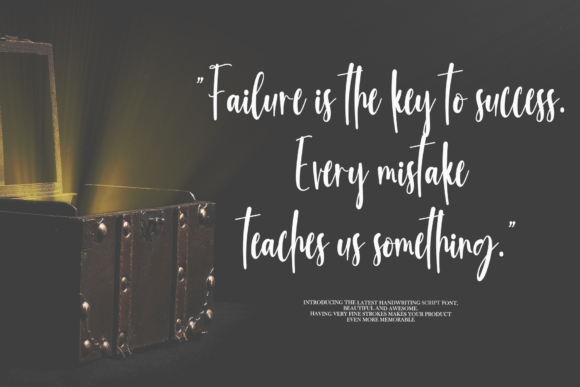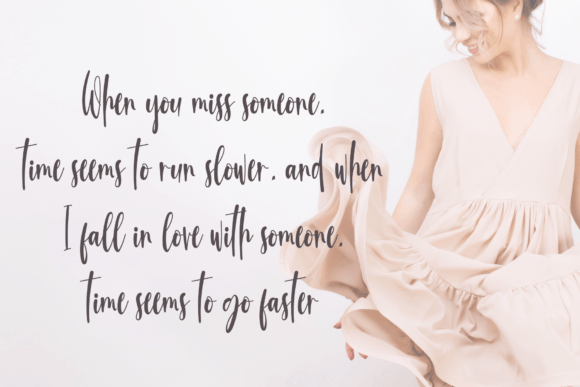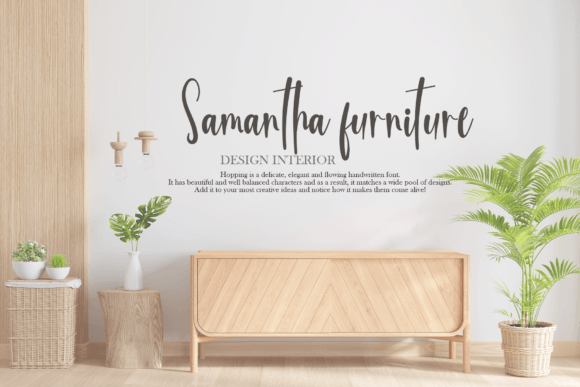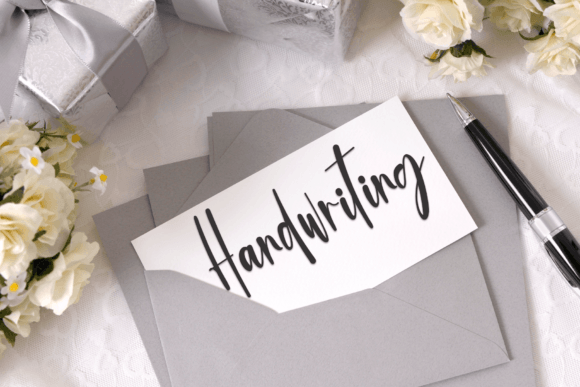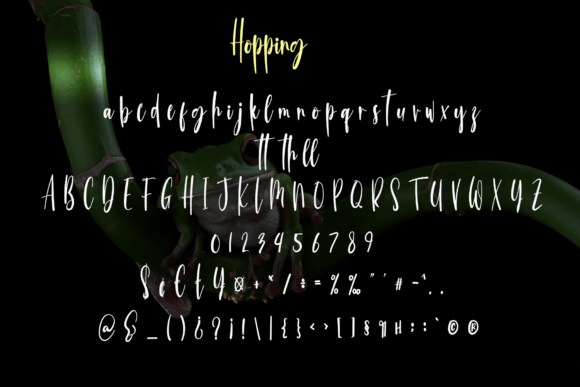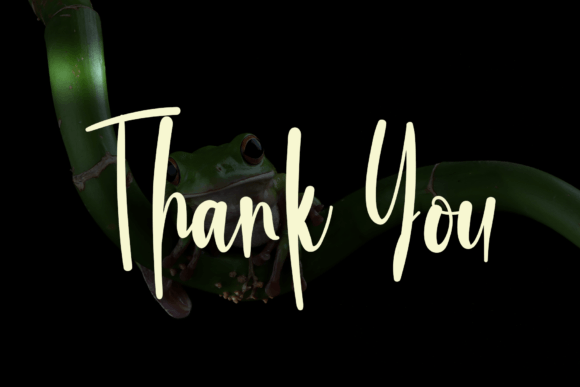
The Perfect Leap for Your Next Design Project
Have you ever been stuck in a creative rut, staring blankly at your computer screen, searching for the perfect font to bring your design to life? You know, that moment when everything seems to be missing that special something – until suddenly, it hits you. The perfect font appears, and your entire design takes a dramatic leap forward.
This is exactly what the Hopping Font is designed to do – add that extra oomph to your designs. A modern calligraphy font with smooth handwritten flows, Hopping Font is perfect for logos, wedding stationery, cards, gift designs, photography, watermark, product packaging, and handwritten quotes. With its versatility and unique charm, it’s a valuable addition to any designer’s toolkit.
Hopping Font Key Features
- Unique Characteristics: Hopping Font features a distinctive, playful design with a “hopping” effect, where letters seem to jump off the page. This unique characteristic makes it ideal for creating eye-catching and engaging designs.
- Font Weight: Hopping Font comes in 3 different font weights: Regular, Bold, and Outline, providing designers with options to create contrast and emphasis in their designs.
Hopping Font Review
I must say, I was initially drawn to the Hopping Font for its playful and whimsical vibe ✨. The font’s unique, bouncy style is perfect for adding a touch of fun to any design project. I appreciate how well the font works for titles and headings, adding a sense of movement and energy to the layout.
One of the standout features of the Hopping Font is its versatility ✨. It’s great for creating eye-catching graphics, logos, and even illustrations. The font is also highly customizable, allowing designers to adjust the size, color, and spacing to fit their specific needs.
- The font may be too playful for more formal or serious designs.
- The bouncy style can be distracting if overused.
- The font may not be as readable in smaller sizes.
Overall, I think the Hopping Font is a great addition to any designer’s toolkit. While it may have some limitations, its unique style and versatility make it a great choice for designers looking to add some personality to their work. With the right project, this font can really shine ✨.
For best results, use the Hopping Font in titles and headings to create a playful and eye-catching effect. You can also use it in social media graphics and advertisements to add a touch of whimsy. To get the most out of the font, experiment with different font sizes and colors to create a visually appealing design.
The Hopping Font is perfect for:
- Social media graphics and advertisements
- Titles and headings in presentations and documents
- Playful and creative designs in posters and flyers
Alternatives to “Hopping Font” for Designers
Comic Sans MS is a sans-serif font known for its playful and casual feel. It’s often used for informal and creative purposes, such as greeting cards, children’s books, and websites with a lighthearted tone.
Compared to Hopping Font, Comic Sans MS has a more rounded and friendly appearance, making it suitable for projects that require a softer and more approachable feel. However, it’s worth noting that Comic Sans MS has been heavily criticized for its overuse and can come across as unprofessional in certain contexts.